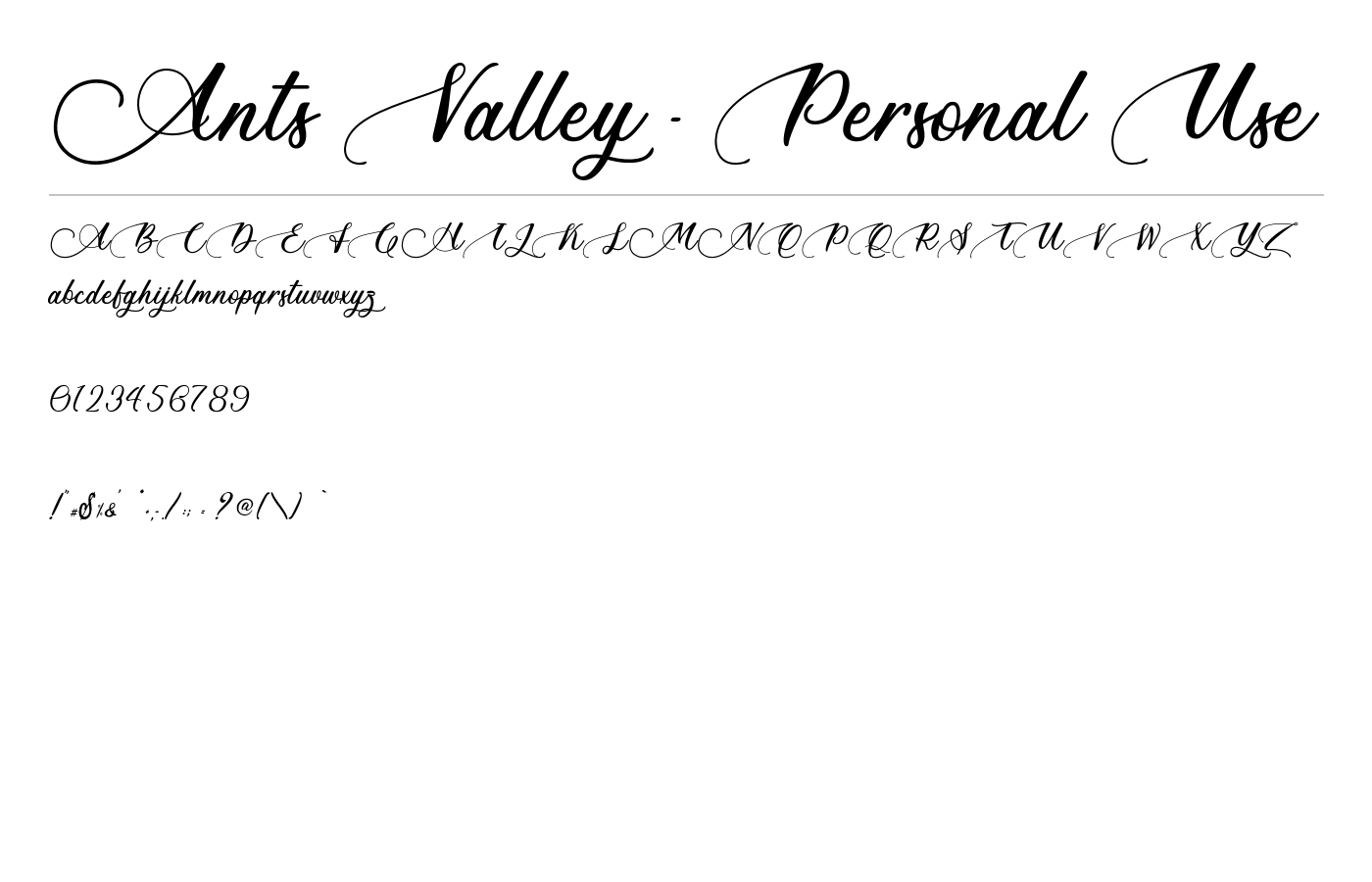
Ants Valley is an elegant, flowing script font featuring delicate, high-contrast strokes and graceful swashes that create a refined and sophisticated look. Its tall, slender letterforms and fine lines make it ideal for personal invitations, luxury branding, and stylish headlines, where a touch of classic charm and femininity is desired. This font lends itself beautifully to projects that aim to communicate elegance, romance, and a handcrafted feel.
Ants Valley - Personal Use Font
About Ants Valley - Personal Use Font
| Font family | Ants Valley - Personal Use Font |
| Designer | Typhoon Type - Suthi Srisopha |